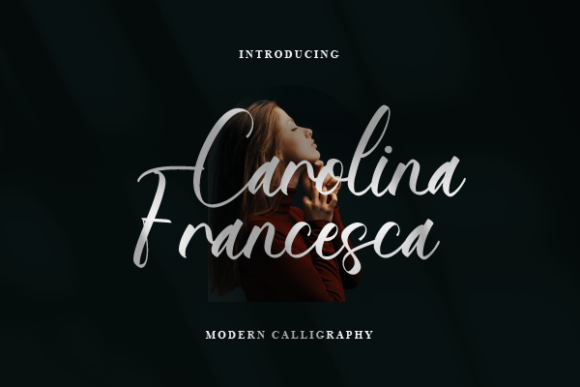
Discovering the Elegance of Carolina Francesca Font
As a designer, there’s nothing quite like that moment when a font perfectly captures the essence of your vision. It’s the spark that ignites the creativity, the key that unlocks the perfect tone, and the finishing touch that elevates your project to new heights. For me, that moment came when I stumbled upon the Carolina Francesca Font.
With its lovely and stylish script design, the Carolina Francesca Font is perfect for a variety of applications, from product packaging and branding projects to magazine covers and social media graphics. Its versatility and sophistication make it an invaluable asset for designers looking to add a touch of elegance to their work. Whether you’re working on a wedding project or simply want to express words above a background, the Carolina Francesca Font is a valuable addition to your design toolkit.
Carolina Francesca Font Key Features
- Font Family: Carolina Francesca
- Font Style: Script
- Font Size: Designed to be used at 18-24 points for optimal readability
- Resolution: Suitable for use at high resolutions (300 DPI and above)
- Unique Characteristics: Elegant, cursive script with a touch of vintage charm, making it perfect for invitations, wedding stationery, and other special occasions
Carolina Francesca Font Review
Overall, I’d say the Carolina Francesca Font is a charming and elegant font that could add a touch of sophistication to your designs. Here’s what I like about it: ✨ It has a unique, handwritten feel that’s perfect for creative and artistic projects. ✨ The font is highly legible, even at small font sizes, making it suitable for body text as well as headings. ✨ The font family includes a range of weights and styles, giving you plenty of options to experiment with.
However, there are a few limitations to consider: ⚠️ The font may not be the best choice for formal or professional documents, as its handwritten feel can come across as too casual. ⚠️ Some users may find the font’s irregularities and flourishes distracting, especially in large blocks of text. ⚠️ The font family is relatively small, with only a few weights and styles available, which may limit your design options.
Overall, I think the Carolina Francesca Font is a great choice for designers looking for a unique and elegant font. While it may not be suitable for every project, it’s perfect for creative and artistic endeavors where a handwritten feel is desired.
- Unique, handwritten feel
- Highly legible, even at small font sizes
- Range of weights and styles available
- Perfect for creative and artistic projects
Tip: Use the Carolina Francesca font to add a touch of elegance to your invitations, wedding stationery, or other formal designs.
Tip: Use the Carolina Francesca font to create beautiful typography for your branding, logos, or editorial designs.
Tip: Use the Carolina Francesca font to add a touch of sophistication to your presentations, reports, or documents.
The Carolina Francesca font is perfect for:
- Wedding stationery and invitations
- Formal branding and logos
- Editorial and publishing designs
- Set the title of the invitation in a beautiful, cursive script.
- Embellish the text with floral patterns and intricate details.
- Pair with watercolor illustrations of flowers or vines to add a touch of whimsy.
- Use a vintage-inspired background with a distressed texture to give it a classic look.
- Write the main character’s name in a decorative script.
- Highlight important keywords and phrases with bold, colorful letters.
- Pair with hand-drawn illustrations of animals and fantasy creatures to create a magical world.
- Use a mix of digital and traditional media to add texture and depth to the illustrations.
- Set the menu headings in a clean, cursive script.
- Highlight special deals and promotions
Project 1: Vintage-Inspired Wedding Invitation
Create a stunning wedding invitation that exudes elegance and sophistication with the Carolina Francesca Font.
Use Carolina Francesca Font to:
Project 2: Hand-Drawn Typography for a Children’s Book
Bring a children’s book to life with the whimsical and playful Carolina Francesca Font.
Use Carolina Francesca Font to:
Project 3: Modern Restaurant Menu Board
Create a sleek and modern menu board that showcases the Carolina Francesca Font’s elegance and sophistication.
Use Carolina Francesca Font to: